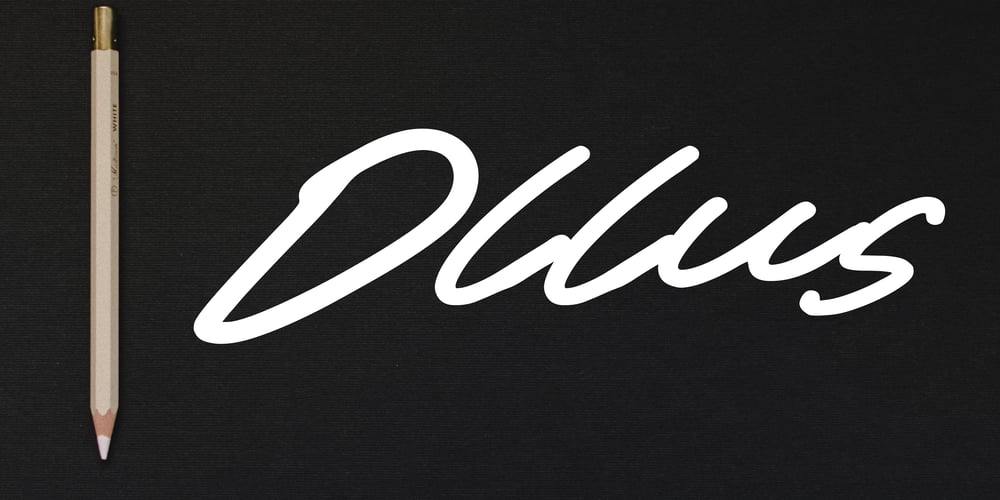
Ollus Font Family was designed by Mariyana and published by Goodigital13. Ollus contains 1 styles and family package options. This font is perfect for many projects, such as brands, quotes, invitations, cards, product packaging, headers, logotypes, posters, apparel designs, movies, and etc.